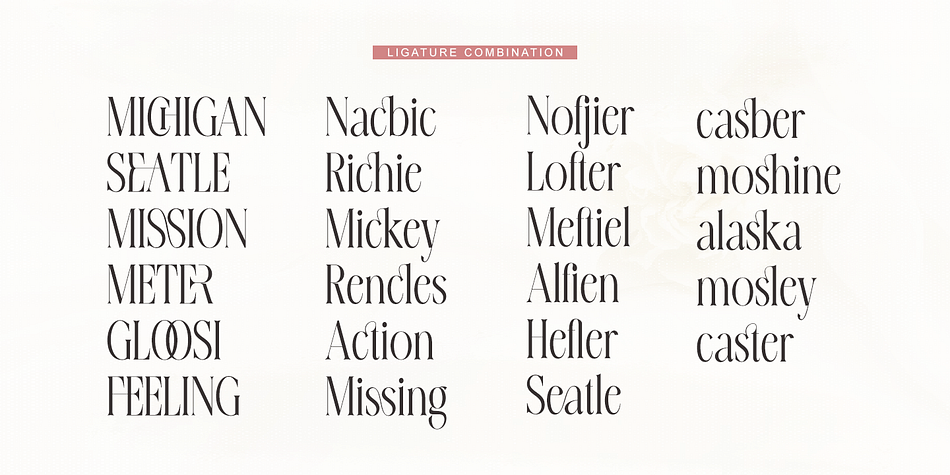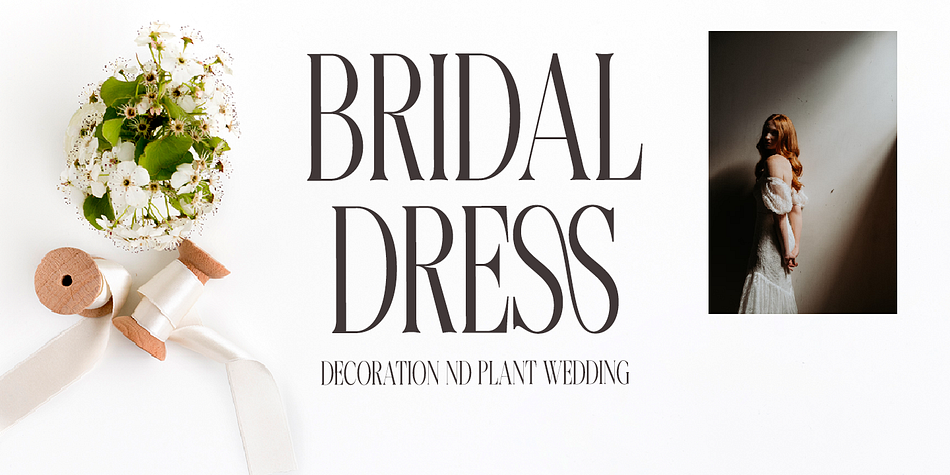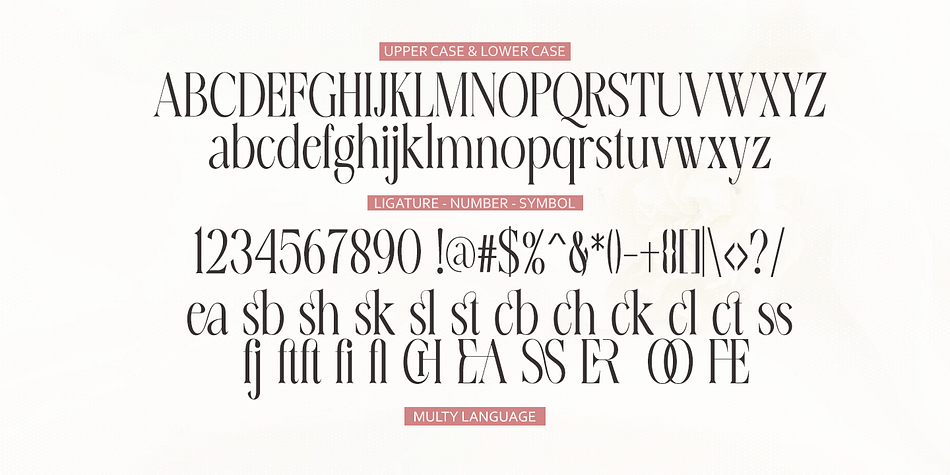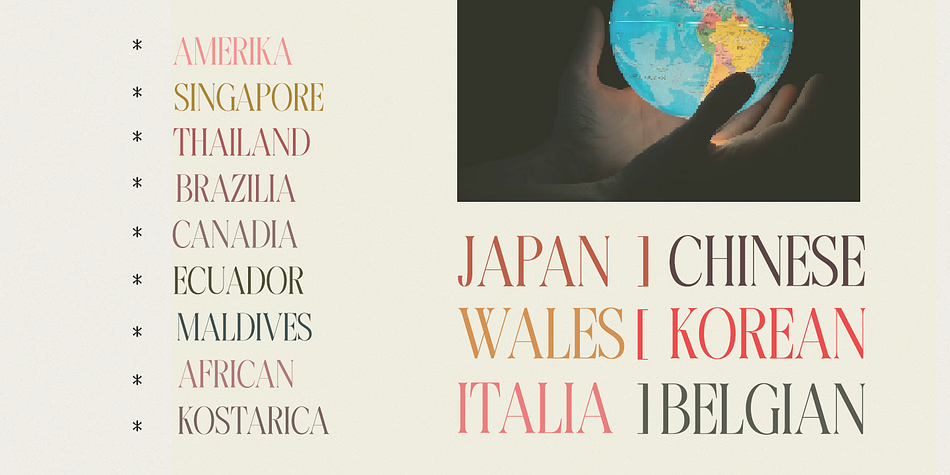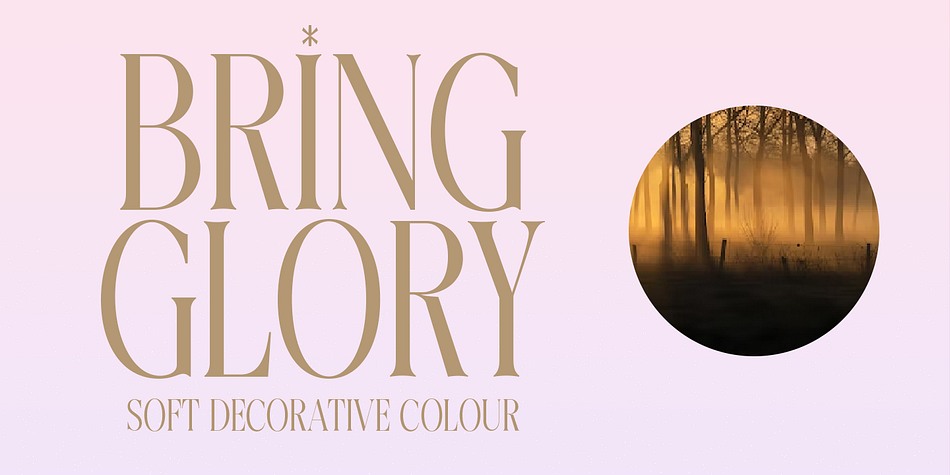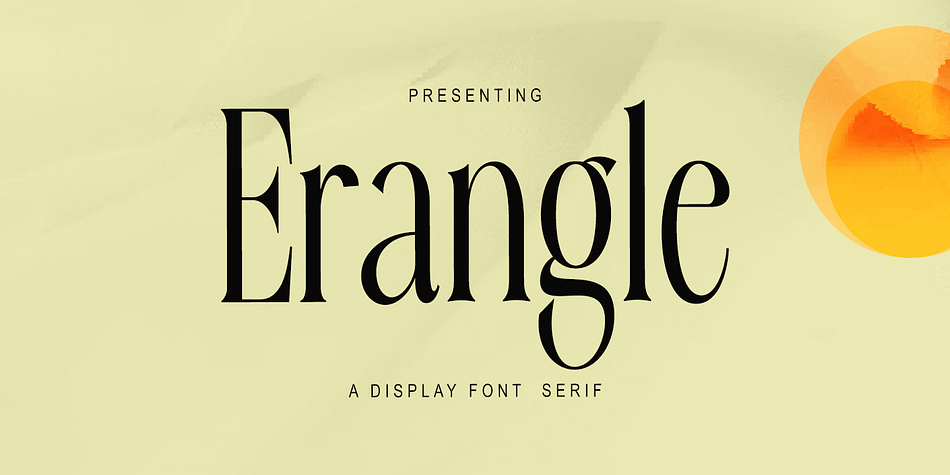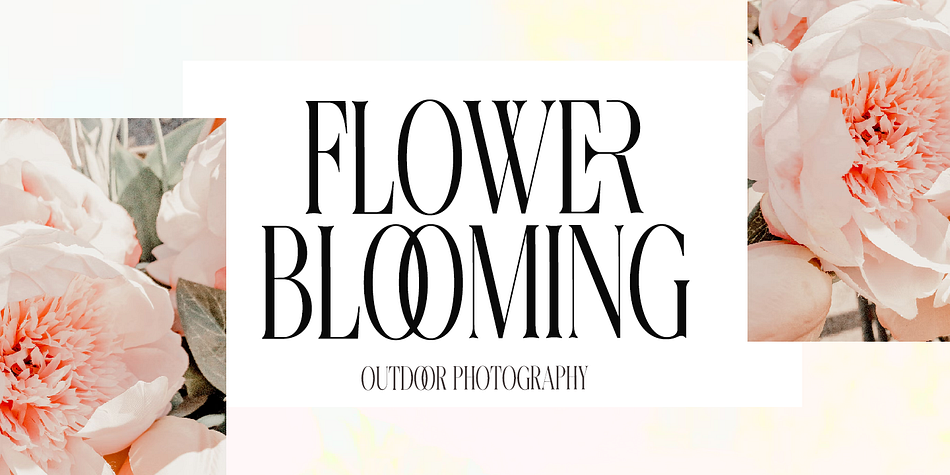
Erangle
Erangle is a display serif font family published by Gatype.
Erangle is an elegant serif typeface inspired by a vintage type specimen I found recently at an art fair. Thin to thick contrasting lines and elegant curves make Beginta the perfect font for this type of logo and display purposes.